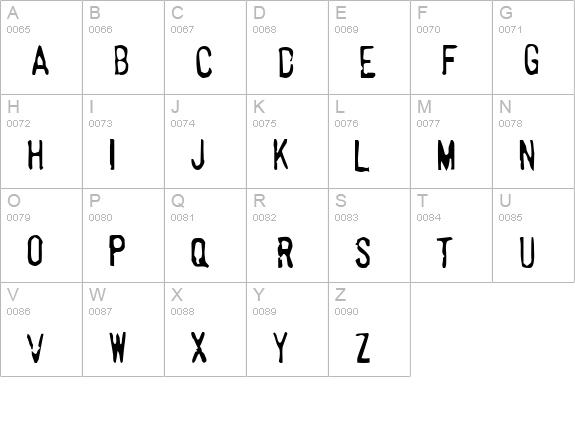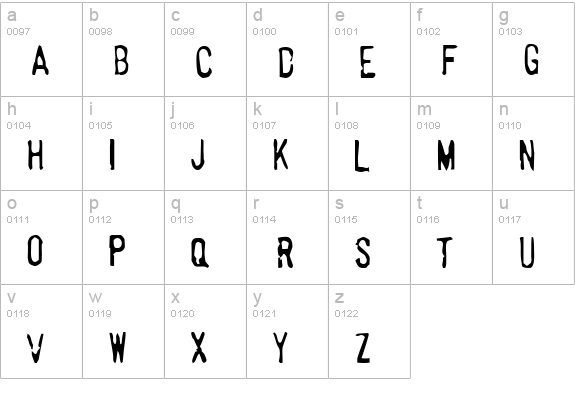
Horrorshow font is a spine-chilling typeface that is sure to send shivers down your spine. With its jagged edges and eerie aura, this font is perfect for creating a truly terrifying atmosphere in your designs. Whether you're working on a horror movie poster, a haunted house flyer, or a Halloween party invitation, Horrorshow font will bring a sense of dread and unease to your project. The best part? Horrorshow font is completely free to download at FontsMarket.com. That's right, you can give your designs a sinister edge without spending a penny. So go ahead, unleash the darkness with Horrorshow font and watch as your creations take on a whole new level of horror and suspense.